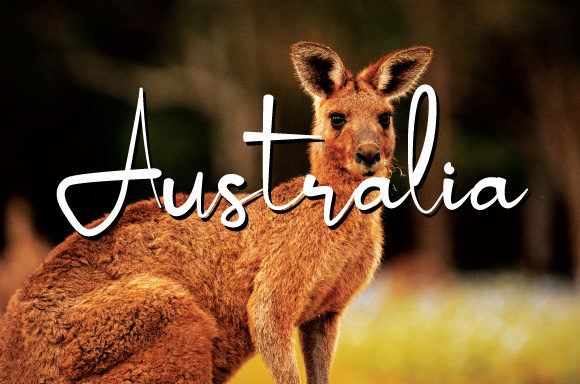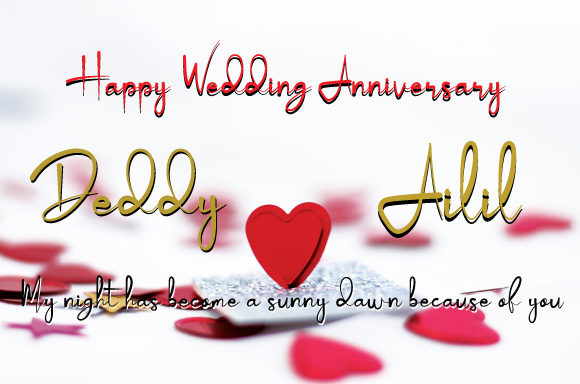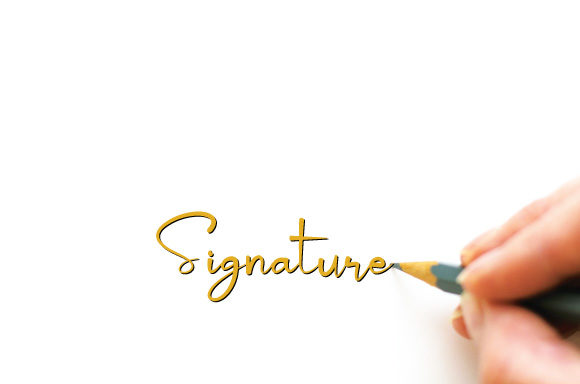
Deddy Font: Elevate Your Designs with a Stylish Handwritten Touch
Deddy is a stylish handwritten font designed to take your creative projects to new heights. With its unique and elegant feel, this font is perfect for designers and crafters looking to add a touch of sophistication to their work. In this article, we’ll explore the features and benefits of Deddy Font, and show you how to make the most of this versatile typeface.
What is Deddy Font?
Deddy Font is a carefully crafted handwritten font that exudes style and elegance. Its smooth, flowing lines and curves create a beautiful, one-of-a-kind look that’s sure to capture attention. Whether you’re working on a logo, branding project, or social media graphics, Deddy Font is the perfect choice for adding a touch of personality and flair.
Key Features of Deddy Font
- Unique and elegant design: Deddy Font boasts a distinctive, hand-crafted look that’s both stylish and sophisticated.
- Versatile and adaptable: This font is suitable for a wide range of design projects, from logos and branding to social media graphics and more.
- Easy to read and use: Despite its elegant feel, Deddy Font is highly legible and easy to work with, making it perfect for designers of all skill levels.
- Supports multiple languages: Deddy Font is designed to support multiple languages, making it a great choice for international design projects.
Benefits of Using Deddy Font
So why choose Deddy Font for your design projects? Here are just a few benefits of using this stylish handwritten font:
- Add a touch of personality: Deddy Font allows you to add a unique and personal touch to your designs, setting them apart from the competition.
- Elevate your brand: With its elegant and sophisticated feel, Deddy Font is perfect for creating high-end branding and logos that exude style and luxury.
- Stand out on social media: Use Deddy Font to create eye-catching social media graphics that grab attention and drive engagement.
- Easy to pair with other fonts: Deddy Font is designed to be versatile and easy to pair with other fonts, making it simple to create stunning font combinations.
Design Project Ideas Using Deddy Font
So what can you create with Deddy Font? Here are some design project ideas to get you started:
- Logos and branding: Use Deddy Font to create a unique and memorable logo that reflects your brand’s personality and style.
- Social media graphics: Create eye-catching social media graphics, such as Facebook posts, Instagram stories, and Twitter headers, using Deddy Font.
- Invitations and stationery: Add a touch of elegance to your invitations, business cards, and other stationery with Deddy Font.
- Packaging design: Use Deddy Font to create stunning packaging designs that stand out on store shelves.
Tips for Using Deddy Font
To get the most out of Deddy Font, here are some tips to keep in mind:
- Experiment with font sizes and styles: Deddy Font comes in a range of font sizes and styles, so don’t be afraid to experiment and find the perfect combination for your design.
- Pair with other fonts: Try pairing Deddy Font with other fonts to create stunning font combinations that add depth and interest to your design.
- Use in combination with images: Deddy Font looks great when used in combination with images, so try incorporating it into your design alongside high-quality visuals.
Deddy Font is a stylish handwritten font that’s perfect for designers and crafters looking to elevate their creative projects. With its unique and elegant feel, versatile design, and ease of use, Deddy Font is the perfect choice for a wide range of design applications. Whether you’re working on a logo, social media graphics, or packaging design, Deddy Font is sure to help you create stunning designs that stand out from the crowd.